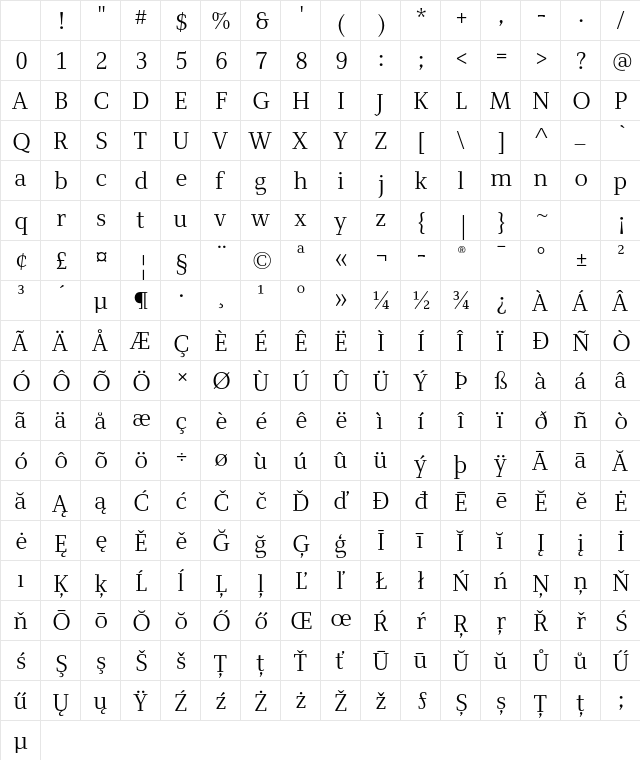
Complete Alfon Regular glyph index. Displaying only characters natively supported by Alfon Regular font.
Alfon is a composed and adaptable typeface that performs quietly and consistently across a wide range of design contexts.